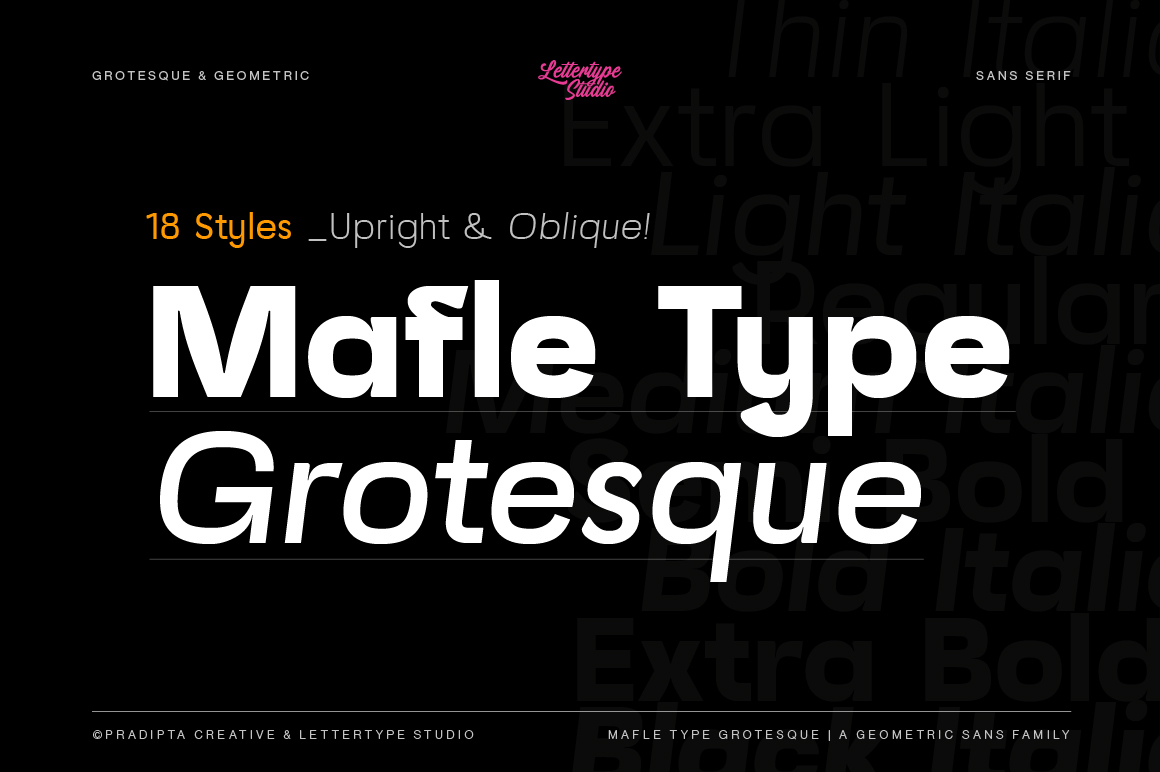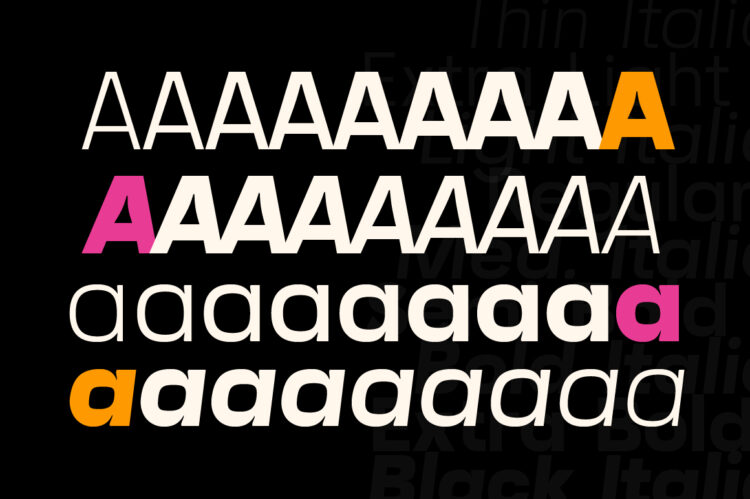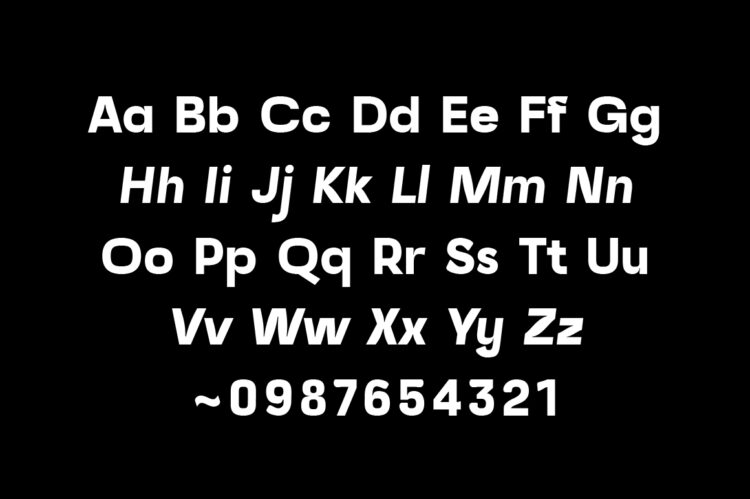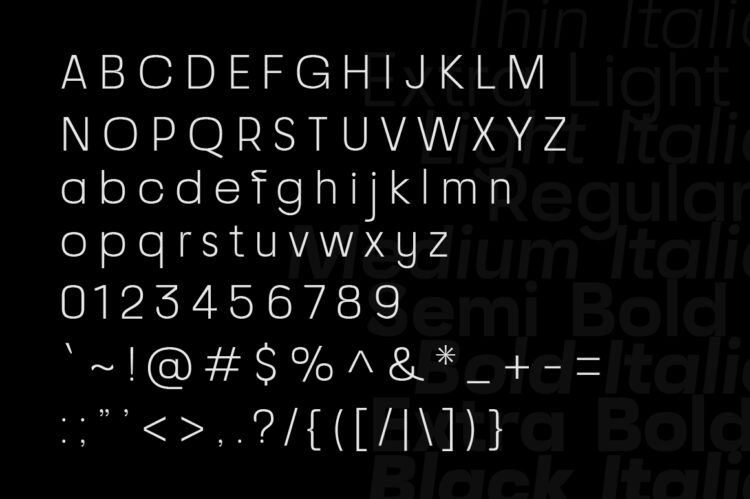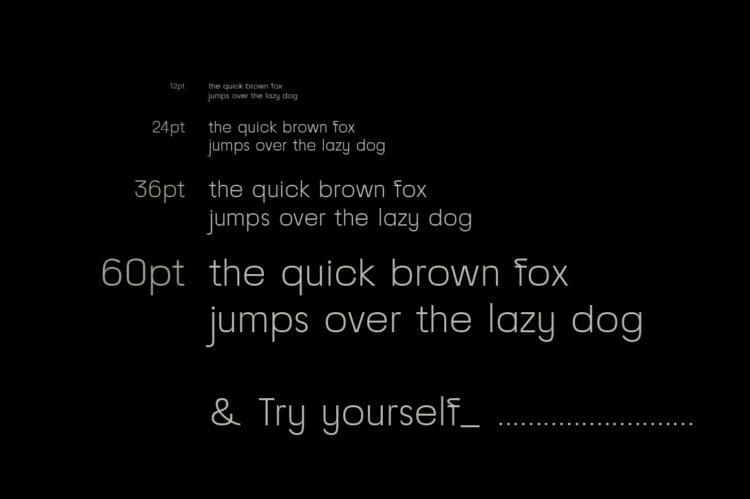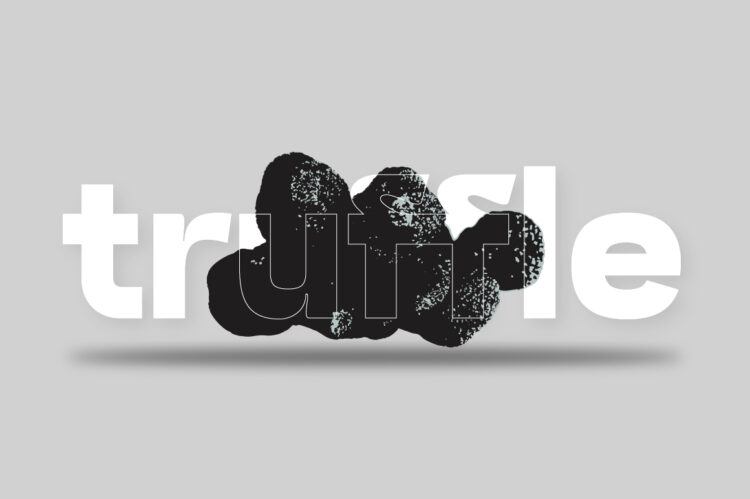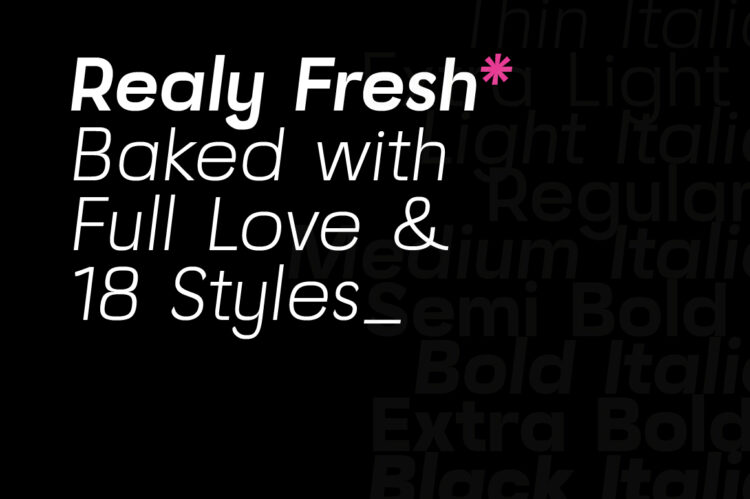
Mafle Type Grotesque seamlessly blends geometric shapes’ clean, modern elegance with the timeless appeal of Grotesque design principles. Designed for readability and versatility, its proportional width, flat apex, closed aperture, and straight-cut stroke ends enhance its contemporary appeal with a bold and strong personality.
Mafle Type Grotesque includes 18 weights, ranging from Thin to Heavy. OpenType features include Stylistic Alternates, figure variations (fractions, tabular lining, numerator, denominator), and broad Latin language support.
Mafle Type Grotesque Features:
- 18 unique grotesque font styles
- Upright & Oblique Styles
- Corporate branding, logo design & creative identities
- Editorial layouts, magazines & modern publications
- Web typography, UI/UX & digital product design
- Posters, packaging & minimalist advertising
- Fashion campaigns, tech startups & clean marketing visuals